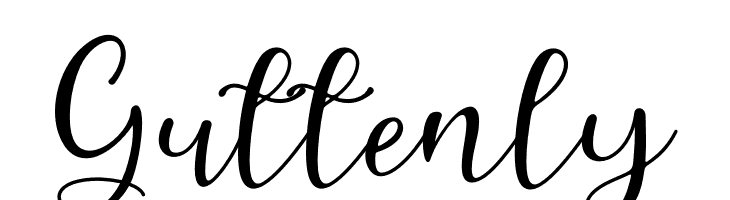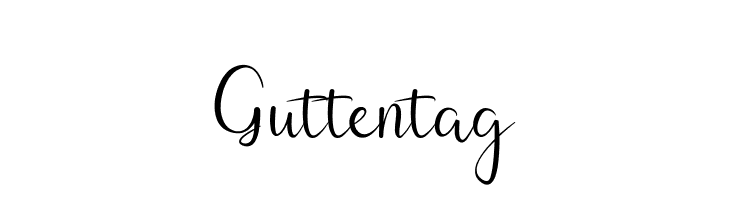
A stylish, cursive handwritten font with elegant, flowing strokes.
A bold, cursive font with fluid, connected characters and a dynamic style.
A bold, elegant script font with flowing curves and dynamic strokes.
A bold, expressive brush script with dynamic strokes and a handwritten feel.
An elegant, flowing script font with a handwritten style.
An elegant cursive script font with interconnected letters and ornate flourishes.
A bold, expressive handwritten font with dynamic strokes and playful elegance.
An elegant, flowing script font with interconnected letters and decorative swashes.
A bold, italicized font with a modern and dynamic style.